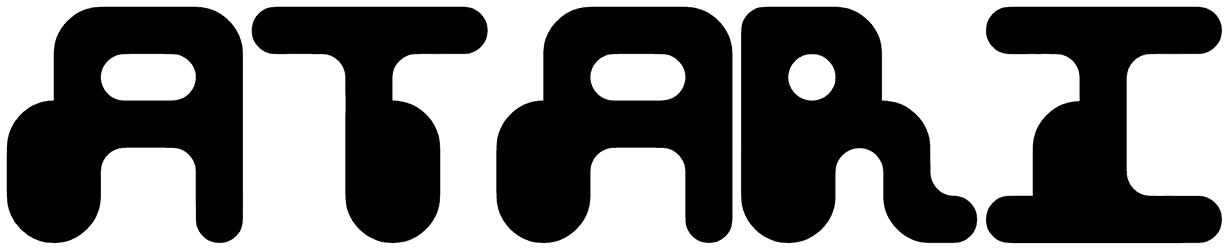
Atari Font
With a strong and distinct style, you can capture a lot of attention with your words, and this gaming font can easily do it. The bold and cool visual of this futuristic letterform would be an amazing pickup to amp up your designs. Test Atari for your coming projects, like posters, websites, or the like, and become impressive.